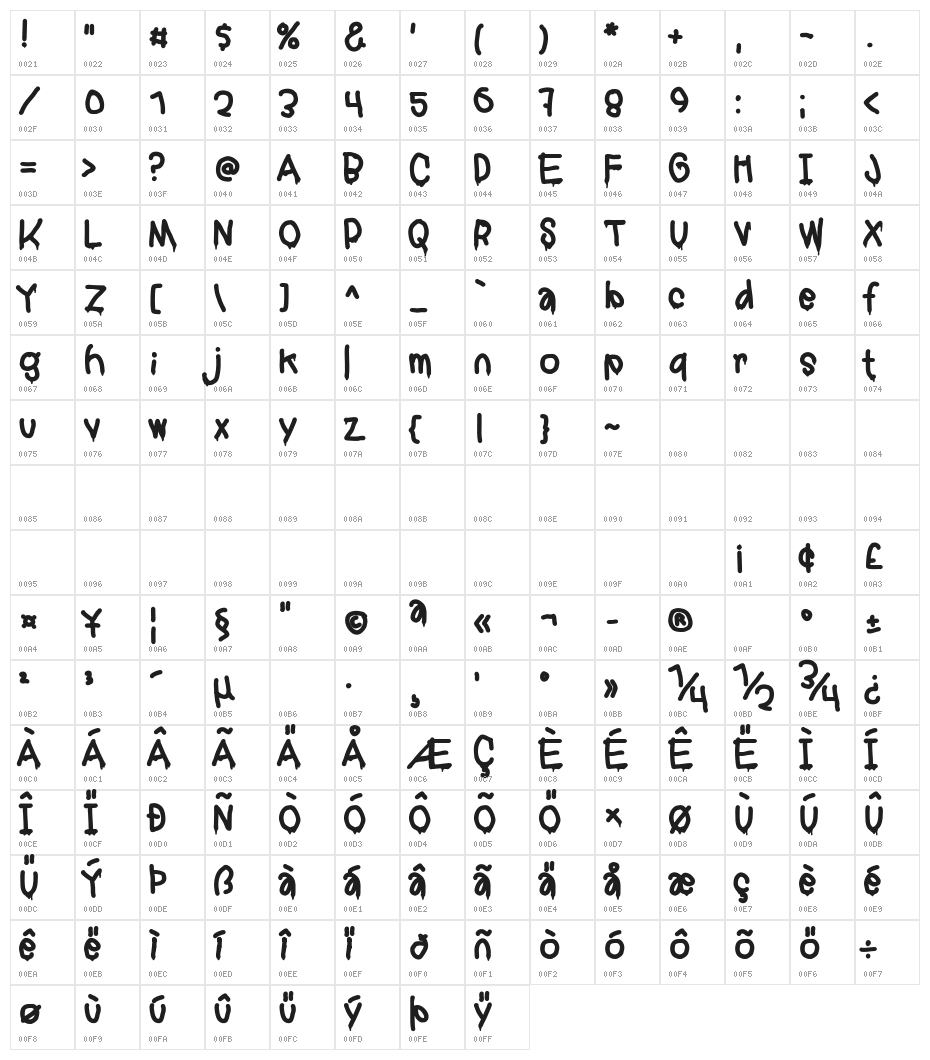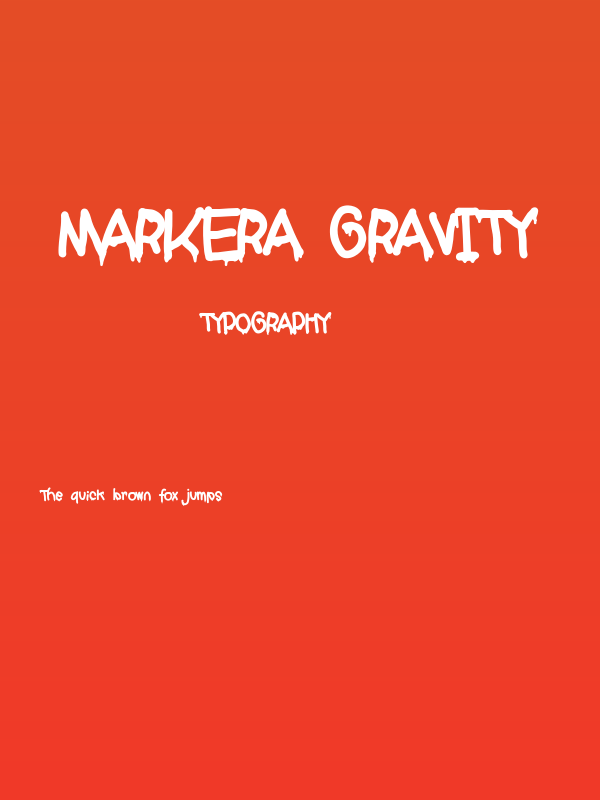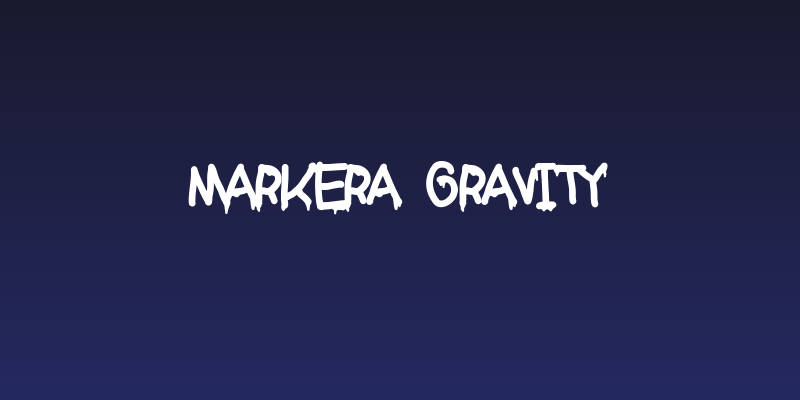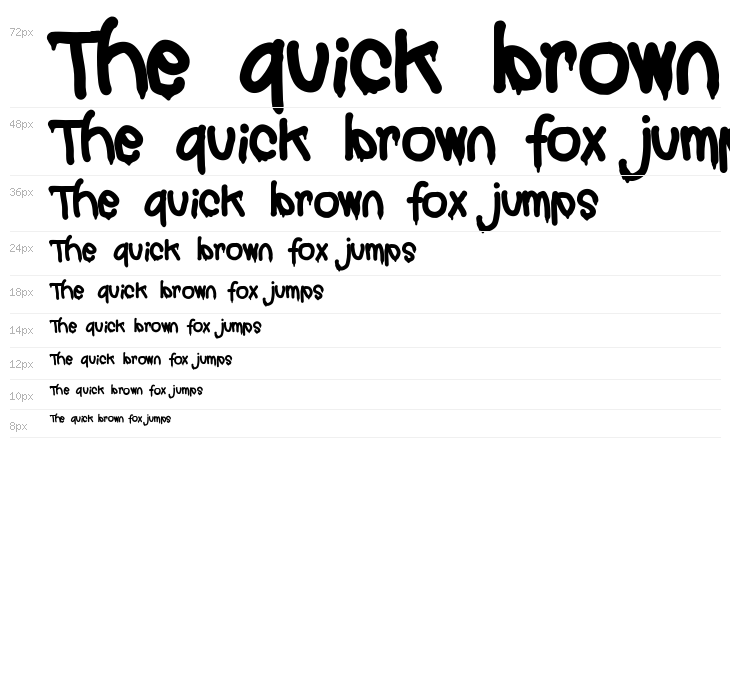
Markera Gravity Font
| Stile generale | Urban, Creative, Energetic |
| Progetti proposti | Ideal for street art designs, urban-themed posters, music album covers, and creative branding projects. |